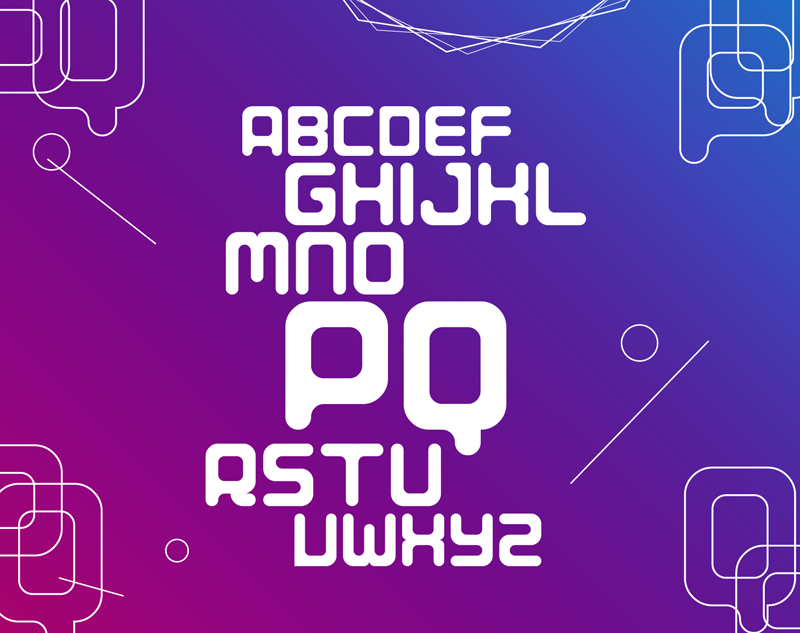
Font name: | Porque |
Author: | André Felipe |
Note by André Felipe | |
"Porque" or "PQ" is a charismatic technological display font, appropriate for titling and logos. Personal use is free. If you'd like to use it commercially, contact me: andfelcaslop@hotmail.com |